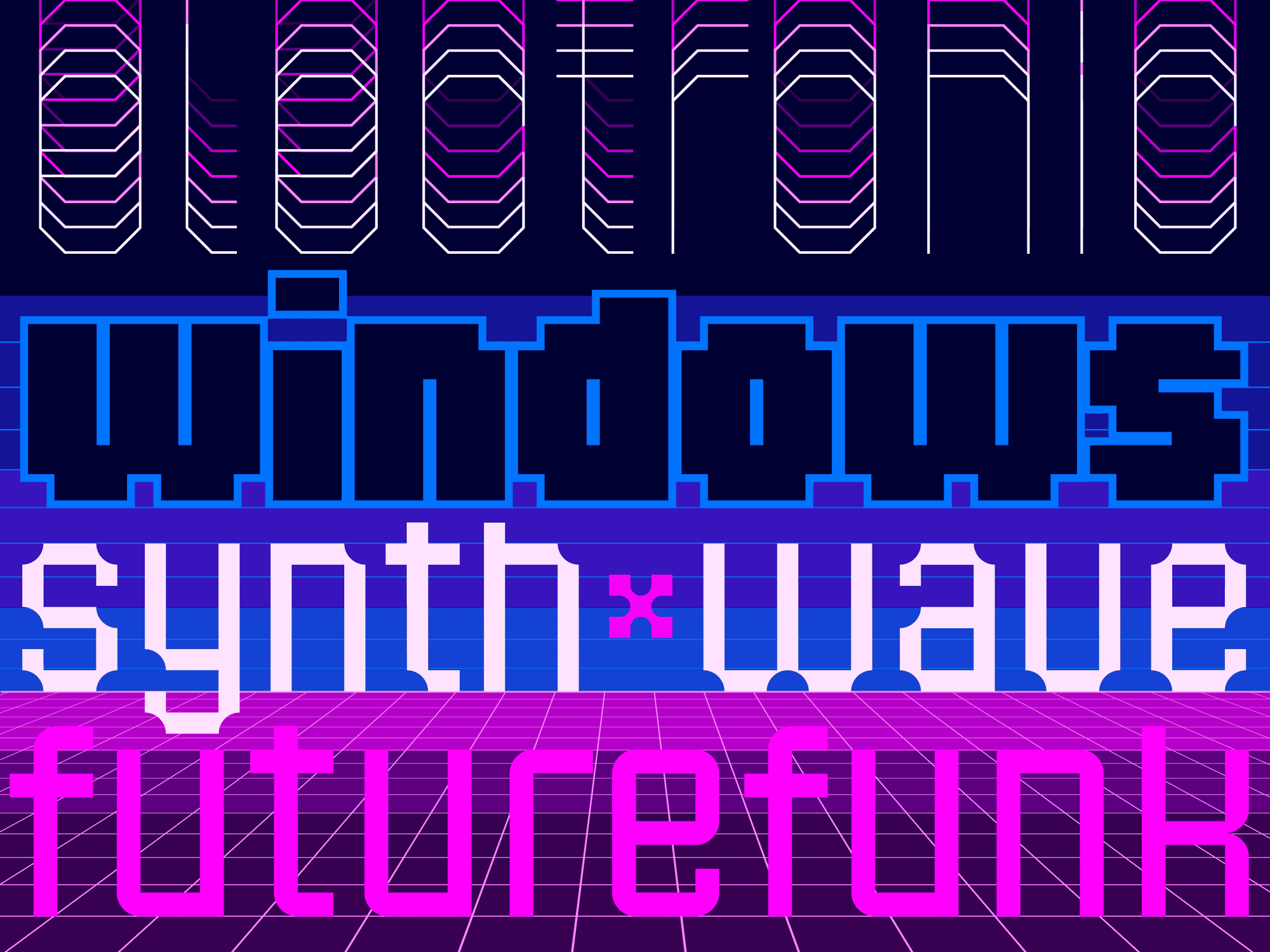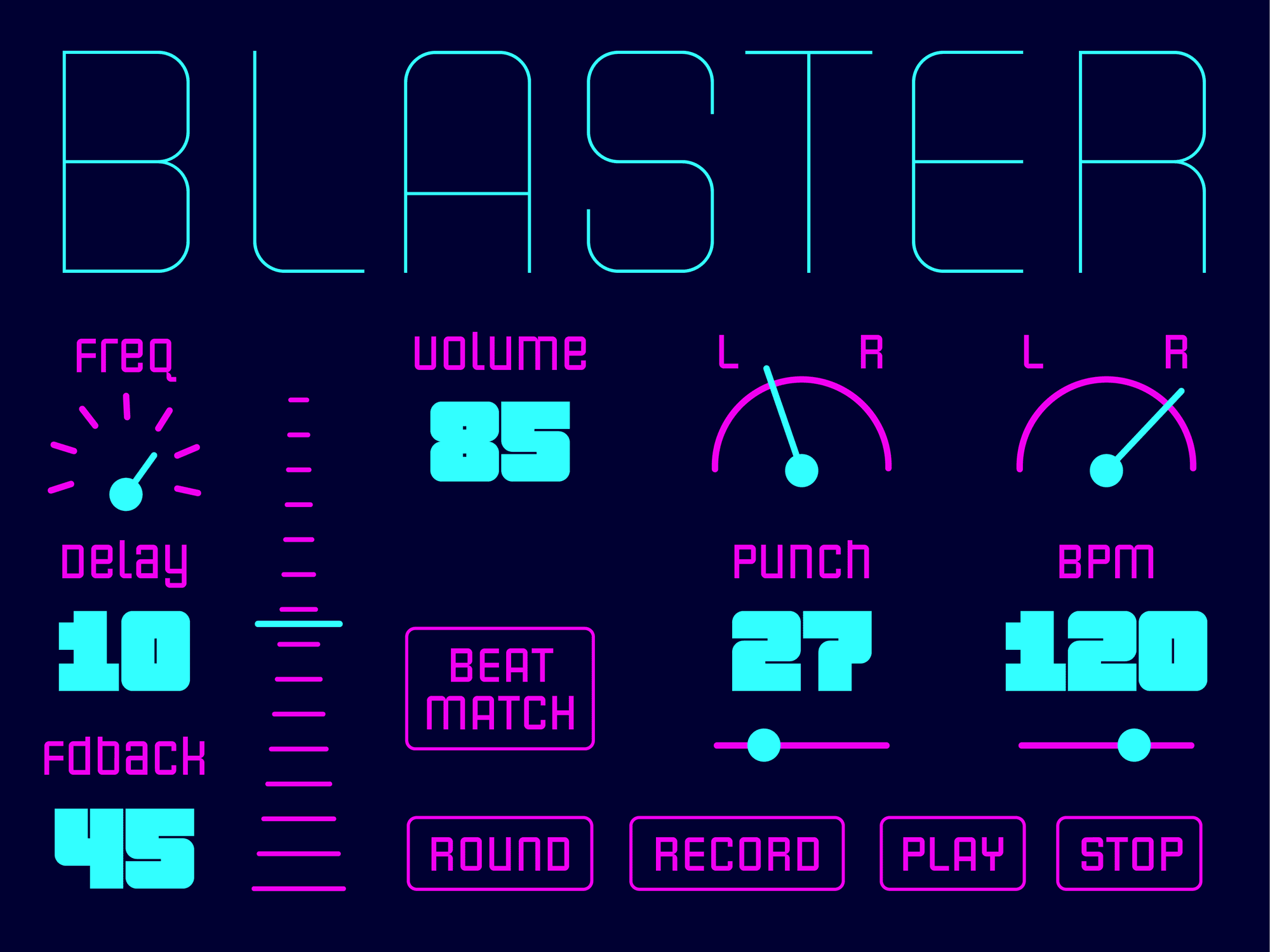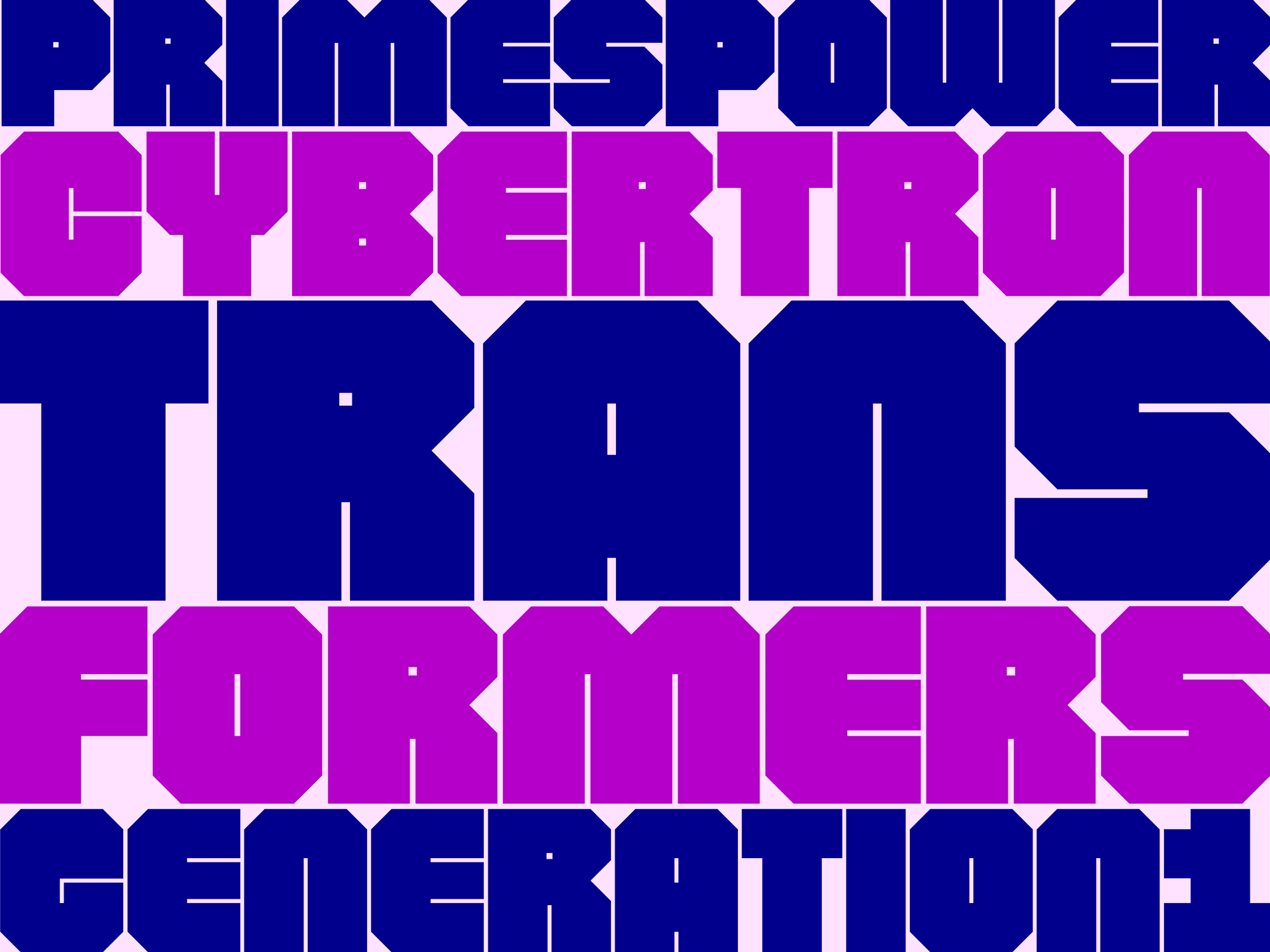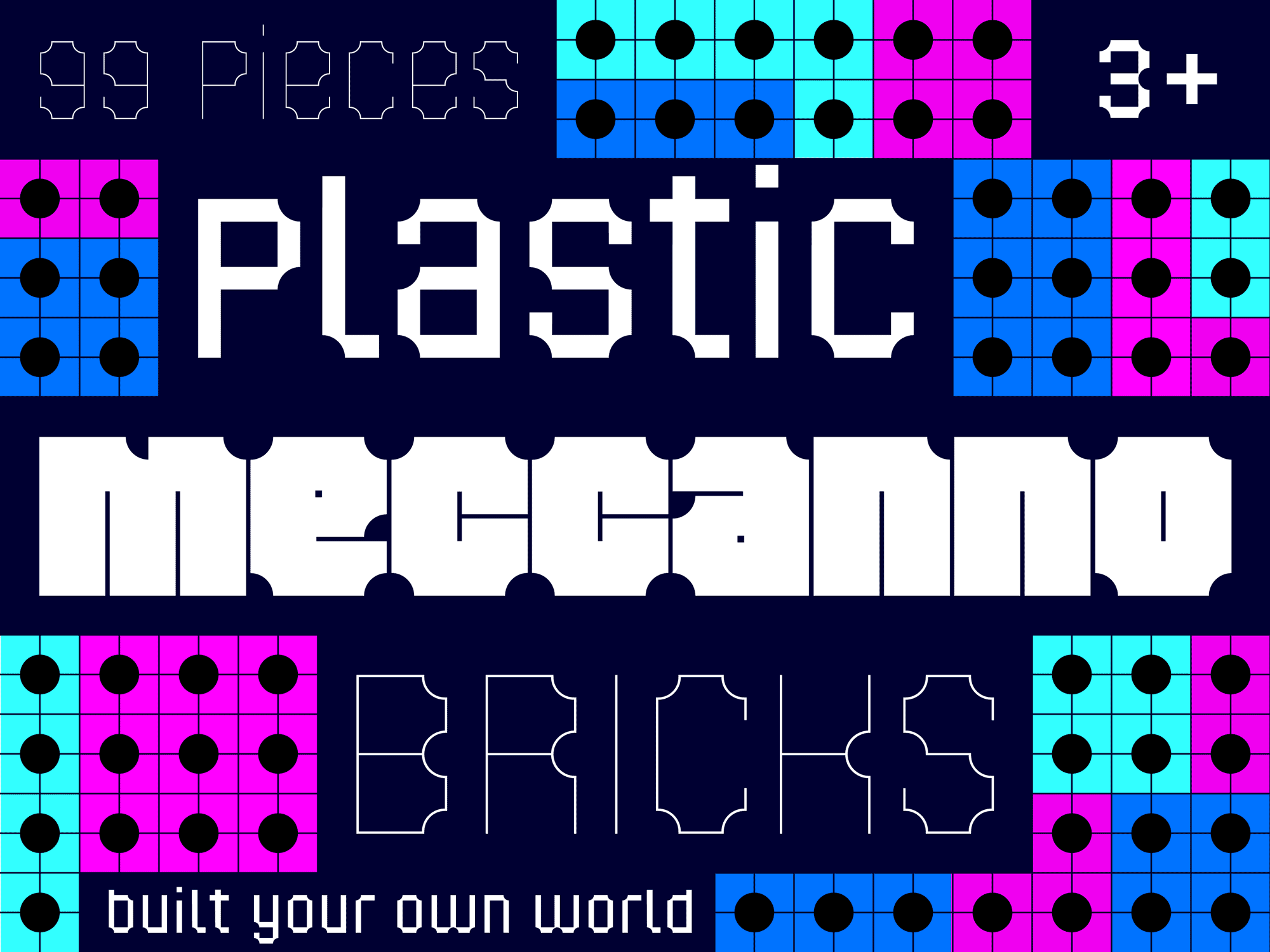
Corner
From pixels to corners is the visual language of the nostalgic and glinting new wave. From the game consoles, through good old transformers, pocket operators corner gives you refreshment in the cases where pixels are obsolete. Look how corners change with each of the version. Experiment with weighs and combination to desired new wave look.